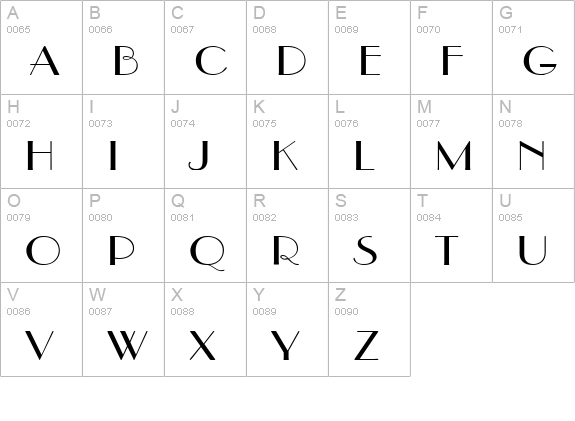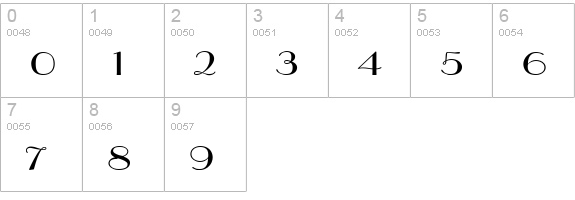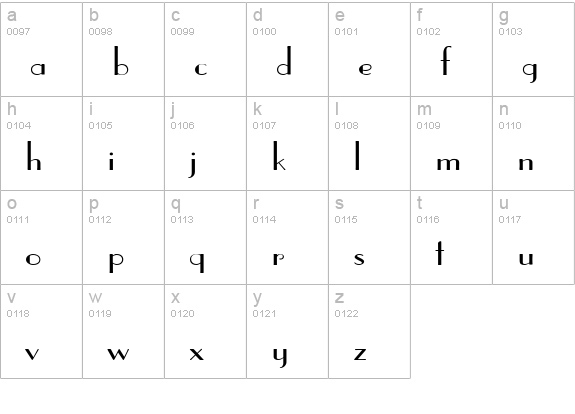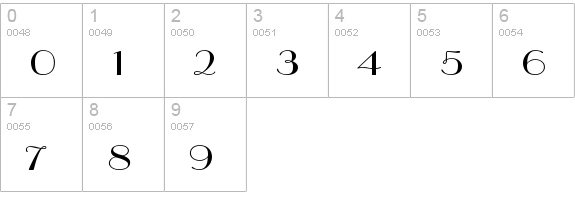
Paris Wide Normal Font Details
Paris Wide Normal is the standard, neutral, extended-width variant in the Paris typeface family \xE2\x80\x94 well suited to general body text, paragraphs, and standard typographic work.
Paris Wide Normal is a contemporary and versatile font that exudes elegance and sophistication. With its clean lines and wide letterforms, this typeface is perfect for a variety of design projects, from branding and logo design to editorial layouts and signage. The beauty of Paris Wide Normal lies in its ability to effortlessly blend with any design style, making it a go-to choice for designers seeking a timeless and modern look. Its slim and elongated proportions give it a sense of grace and refinement, while its wide letterforms add a bold and impactful touch. This font is freely available to download at FontsMarket.com, making it accessible to designers of all skill levels. Whether you're a seasoned professional or a design enthusiast just starting out, Paris Wide Normal offers endless possibilities for creative expression. Its extensive character set includes uppercase and lowercase letters, numerals, punctuation marks, and special characters, ensuring that you have all the tools you need to bring your vision to life. Its legibility and readability make it suitable for both digital and print applications, ensuring that your message is conveyed with clarity and impact. With its timeless appeal and versatility, Paris Wide Normal is the perfect choice for a wide range of design projects. Whether you're designing a sleek and modern website, creating eye-catching social media graphics, or crafting a visually stunning print publication, this font will elevate your designs to new heights. Download Paris Wide Normal for free at FontsMarket.com and unlock the potential of this exceptional typeface. Let your creativity soar and create designs that are both visually captivating and memorable. With Paris Wide Normal, the possibilities are endless, and your designs will stand out from the crowd.